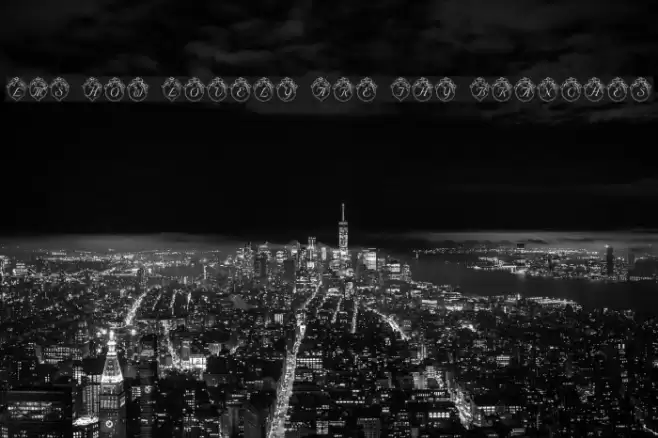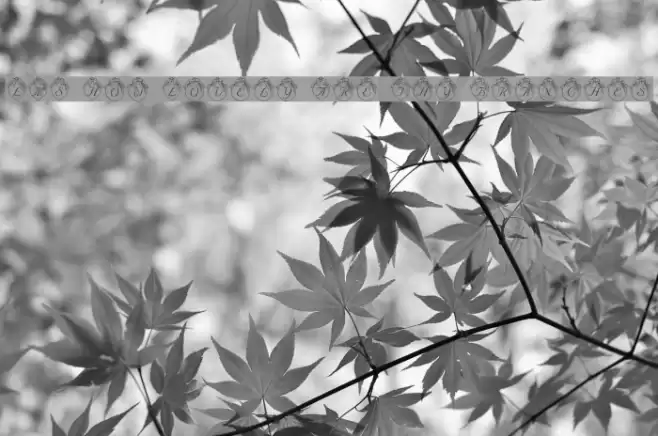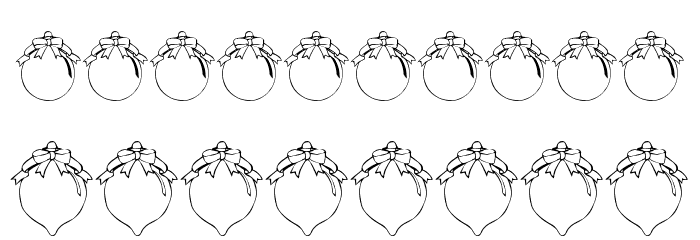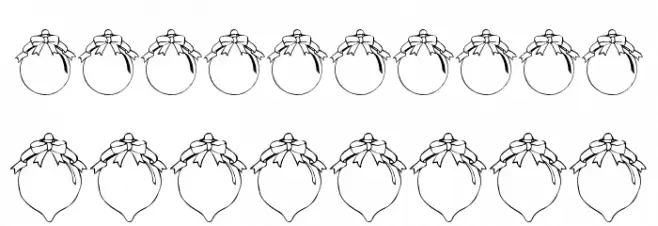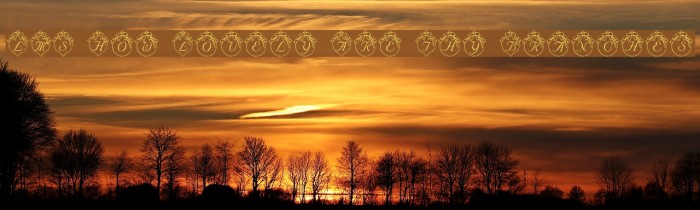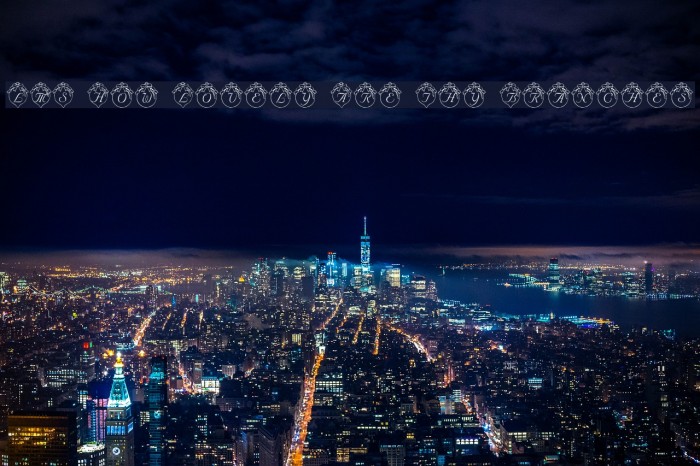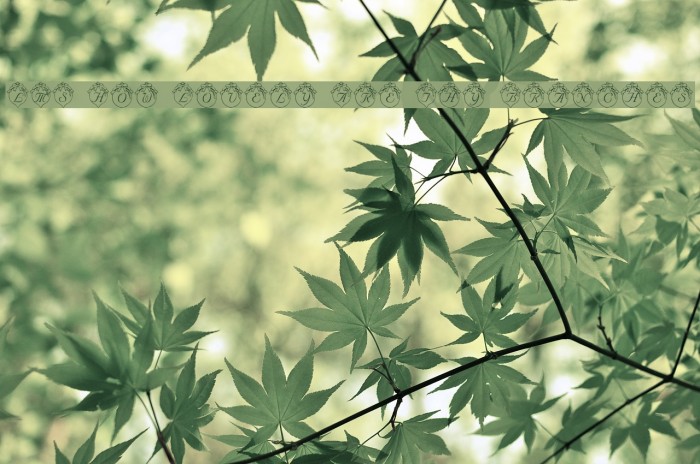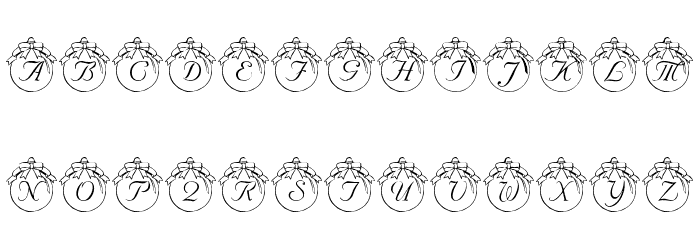
LMS How Lovely Are Thy Branches Font
LMS How Lovely Are Thy Branches Description
This decorative font features letters encased in ornate, holiday-themed ornaments. Each character is elegantly designed with a script style, giving a festive and sophisticated appearance. The letters are surrounded by intricate details resembling Christmas ornaments, complete with bows and decorative elements. This font is perfect for holiday-themed projects, adding a touch of elegance and celebration to any design. The overall style is both classic and decorative, making it suitable for a variety of festive applications.
A decorative, holiday-themed font with script letters inside ornate ornaments from Uncategorized fonts.
- Proposed Projects: Ideal for holiday cards, festive invitations, seasonal branding, and decorative posters.
- Use Case: Headlines, Logos, Decorative text